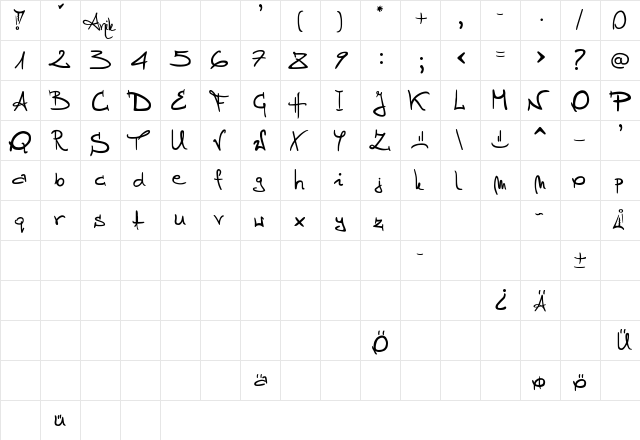
Stellina Regular
Design Context for Stellina Typeface
Stellina is a composed and adaptable typeface that performs quietly and consistently across a wide range of design contexts.